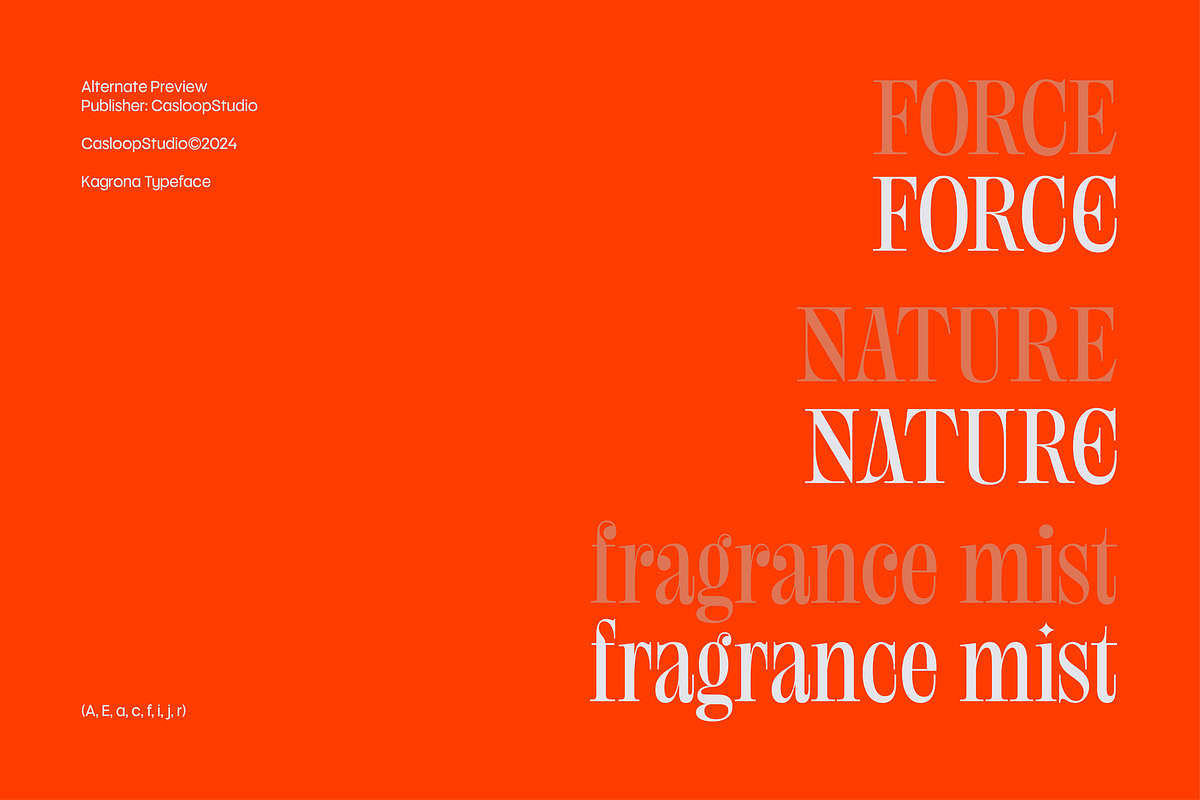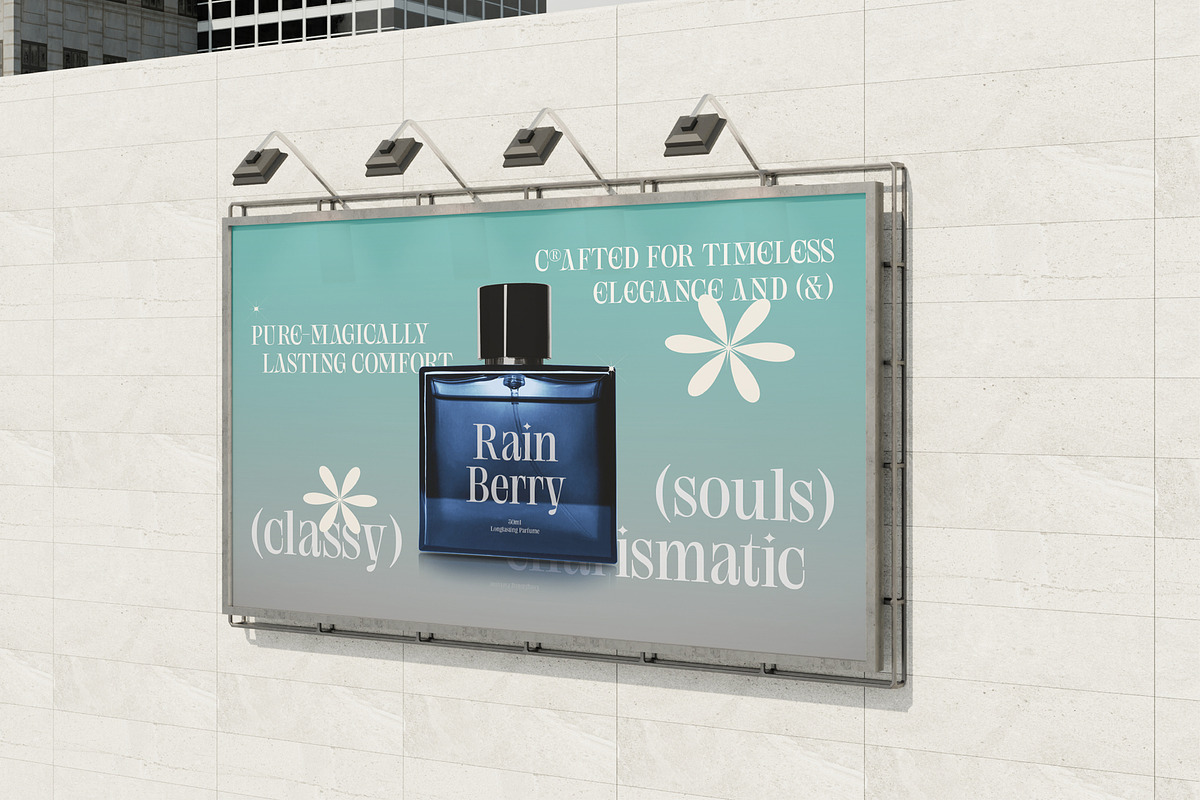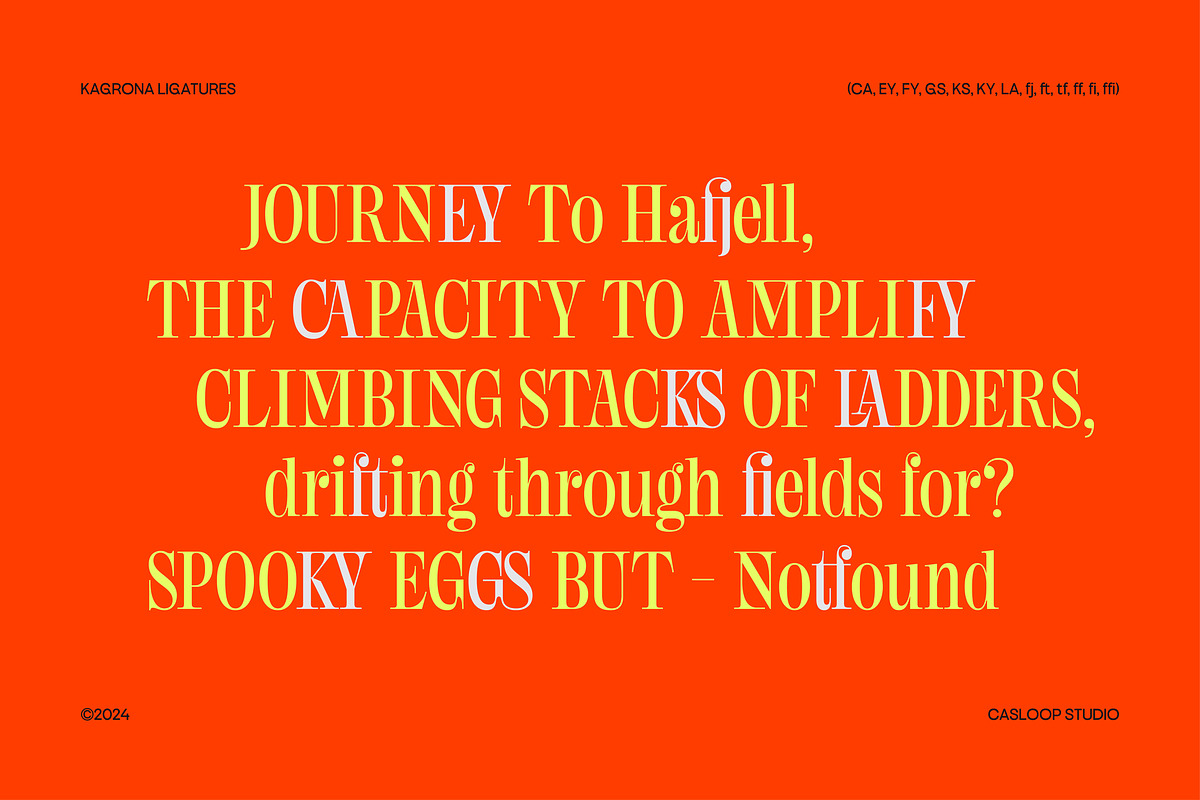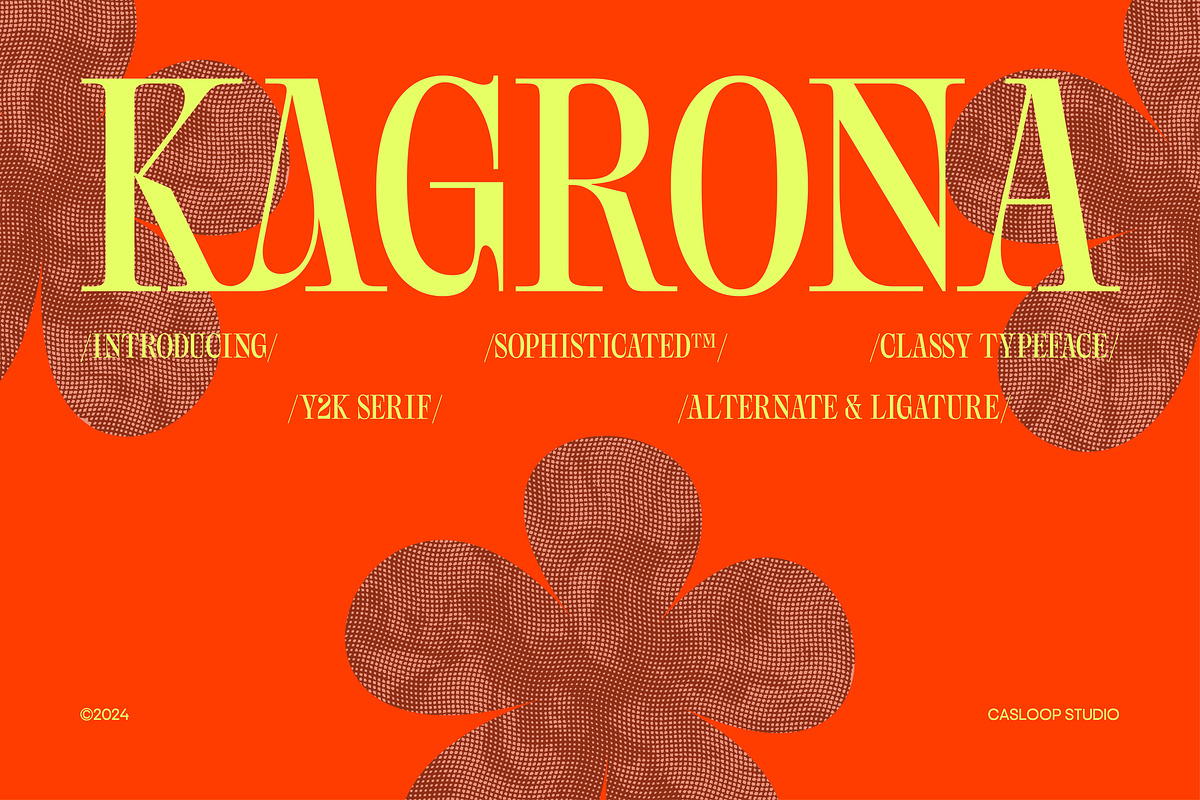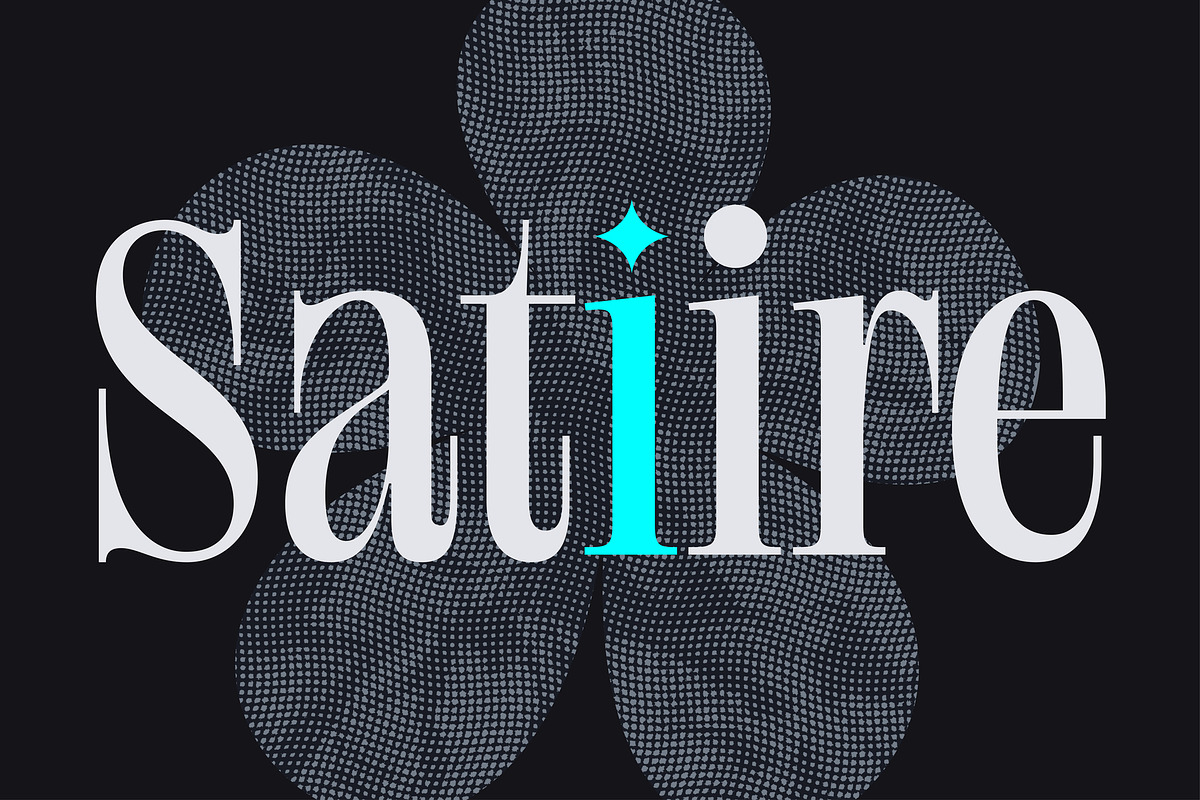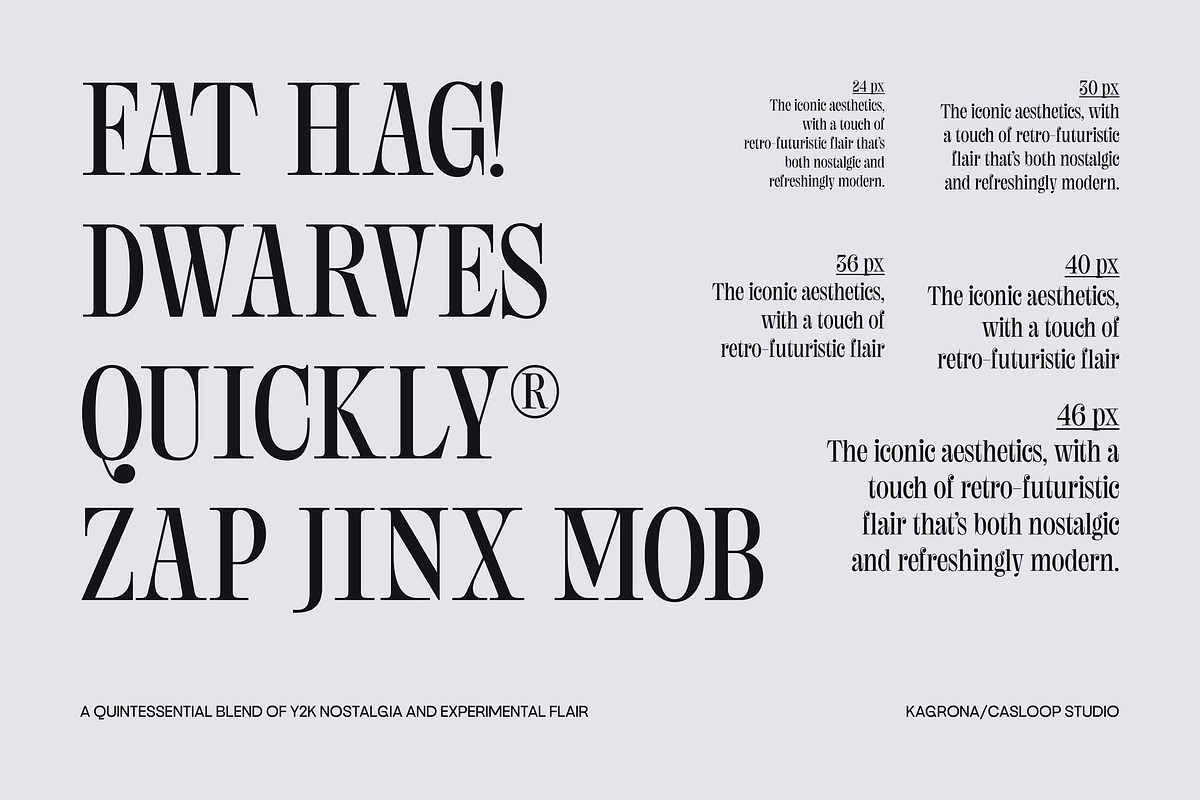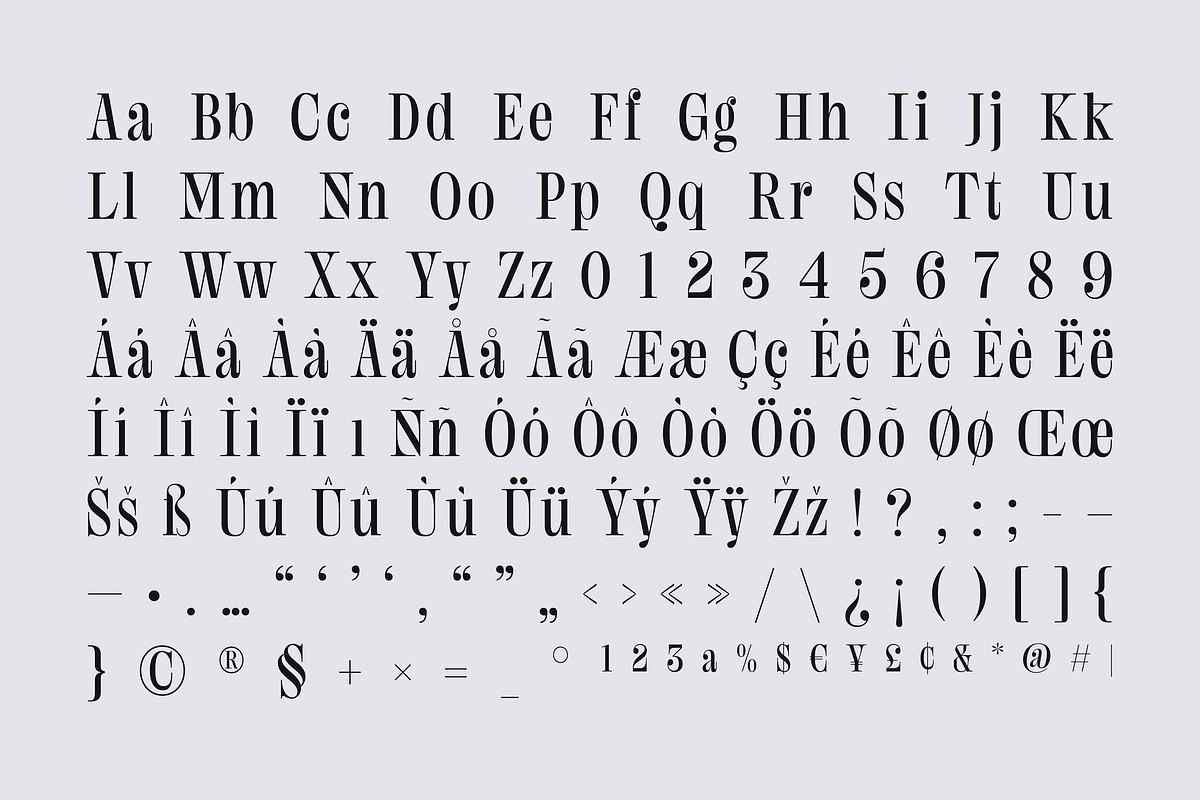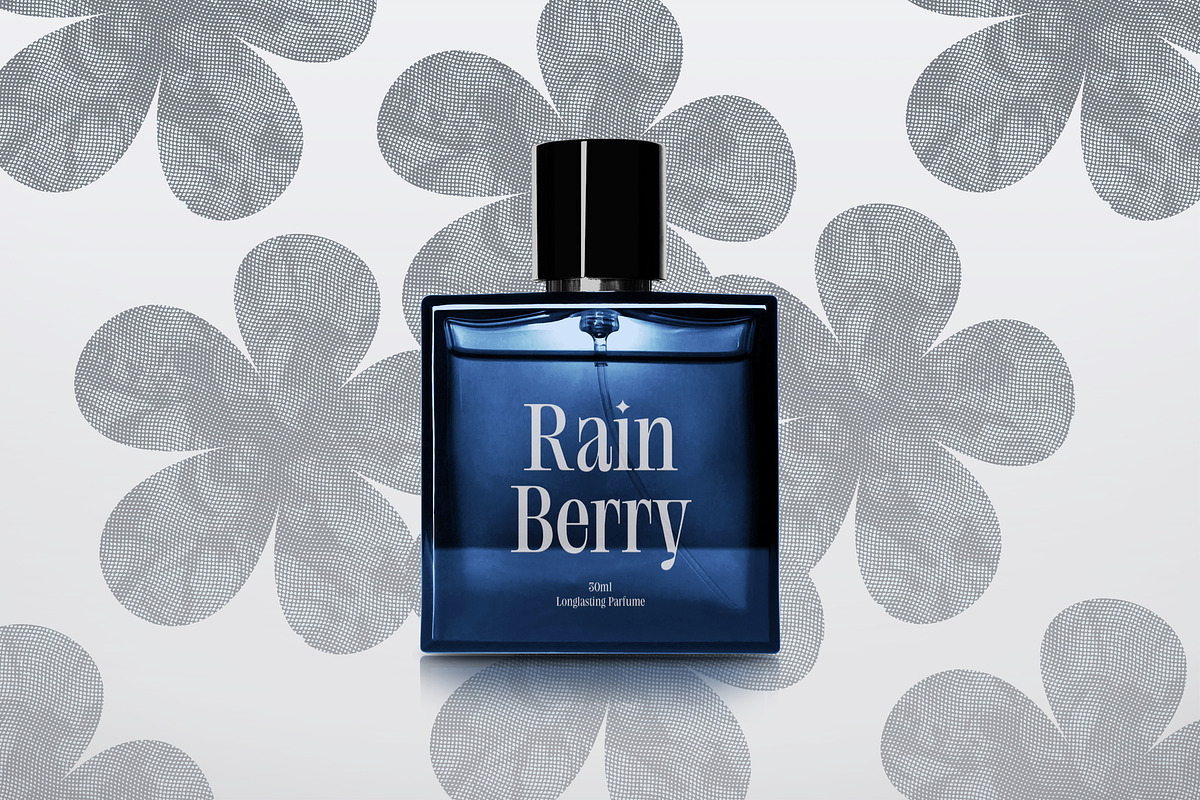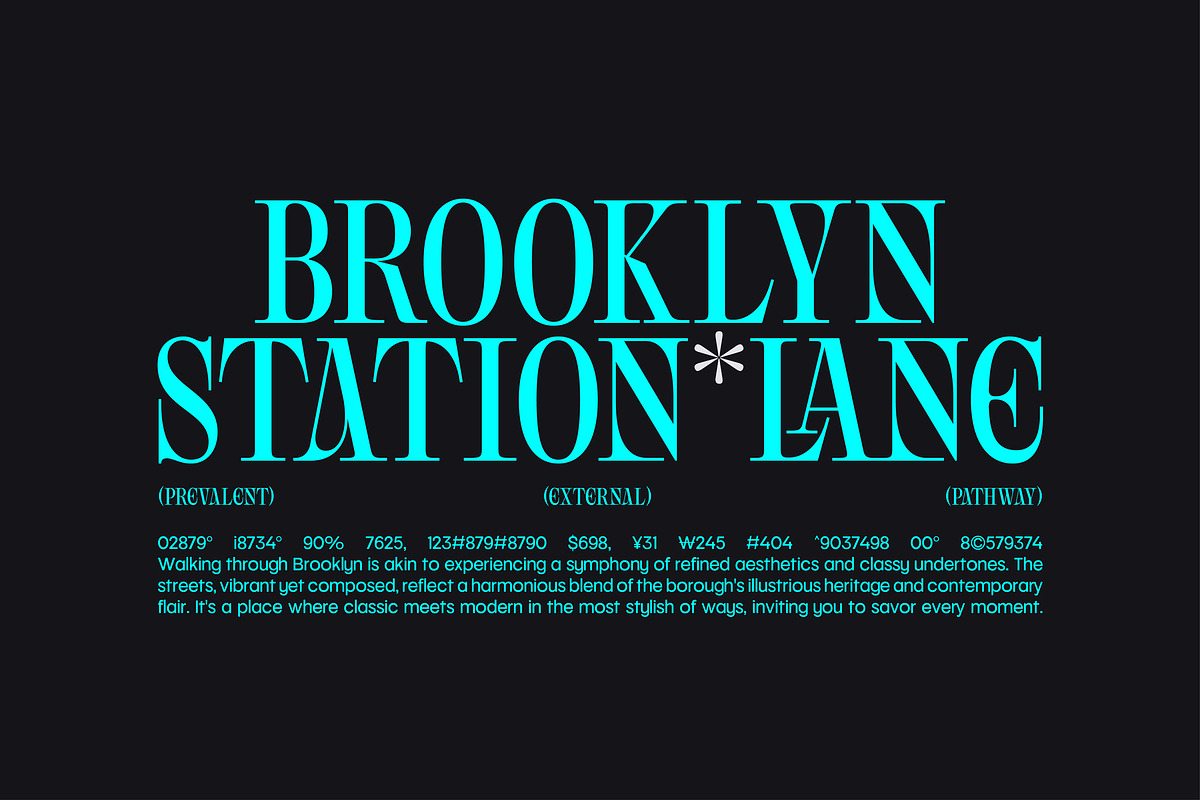
Kagrona - Y2K Experimental Serif
Introducing Kagrona, a display serif font that effortlessly blends the nostalgic charm of Y2K aesthetics with contemporary elegance. Kagrona stands out with its unique experimental design, making it a perfect choice for both classic and modern projects.
Kagrona's superiority lies in its ability to evoke a sense of nostalgia while maintaining a classy and elegant appeal. This font is ideal for creating eye-catching posters, classy editorial layouts, and sophisticated branding materials. Its versatility makes it suitable for logos, digital media visuals, and website designs, bringing a touch of vintage allure to any project.
Key features of Kagrona include its Y2K-inspired design, which is perfect for headlines, retro themes, and vintage-style projects. Its contemporary yet classic look ensures it remains trendy and relevant, while its classy serif style adds a touch of sophistication.
Embrace the modern retro vibe with Kagrona, a font that is both experimental and classic. Perfect for motion graphics and text animations, Kagrona brings a novel and elegant touch to all your creative endeavors.